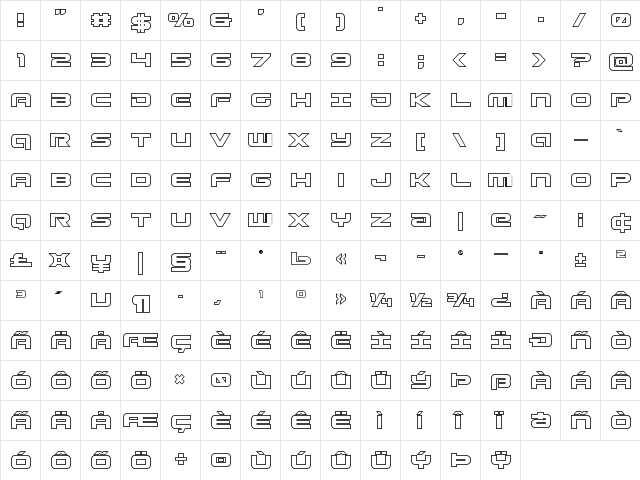
Gunship Outline Outline
Design Context for Gunship Outline Typeface
Gunship Outline is built around its visual character rather than neutral utility — its distinctive forms are designed to make an impression at display sizes.
Font Pairing: Pair with a clean neutral sans-serif for body copy to let Gunship Outline's character lead without overwhelming the composition.
Pro Tip: Use Gunship Outline exclusively at display sizes — it was designed to be seen, not read at length. Let a neutral companion handle body copy.